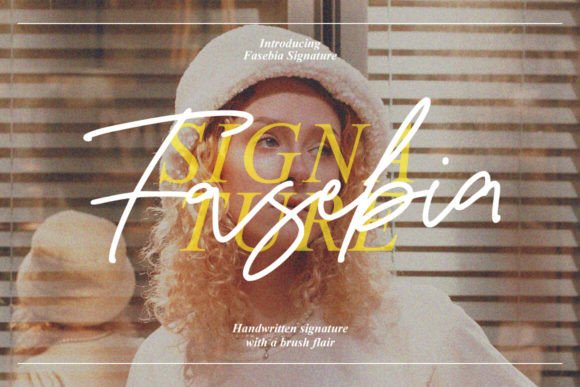
Welcome to the realm of Fasebia, a calligraphy script font family that dances with elegance and sophistication. With its handcrafted signature style and decorative characters, Fasebia transforms your designs into captivating masterpieces. Its baseline dances with grace, adding a touch of dynamism to your invitations, greeting cards, branding materials, and more.
Fasebia is a versatile font family, offering 250+ glyphs to unleash your creativity. The alternative characters are meticulously divided into OpenType features, including Swash, Stylistic Sets, Stylistic Alternates, and Ligature. This allows for effortless access to a world of customization, granting you the freedom to craft designs that truly stand out.
Fasebia's charm lies in its ability to evoke emotions and create a lasting impact. Its elegant strokes and playful baseline add a touch of magic to any project, transforming ordinary words into captivating expressions of art. Whether you're crafting a heartfelt invitation, designing a stunning business card, or creating captivating posters, Fasebia is your trusted companion, guiding you towards design excellence.
Embrace the beauty of Fasebia today and embark on a creative journey that will leave your audience spellbound. Let your designs exude elegance and charm, captivating hearts and minds with every stroke. Fasebia is more than just a font; it's an experience that ignites the imagination and elevates your designs to new heights.